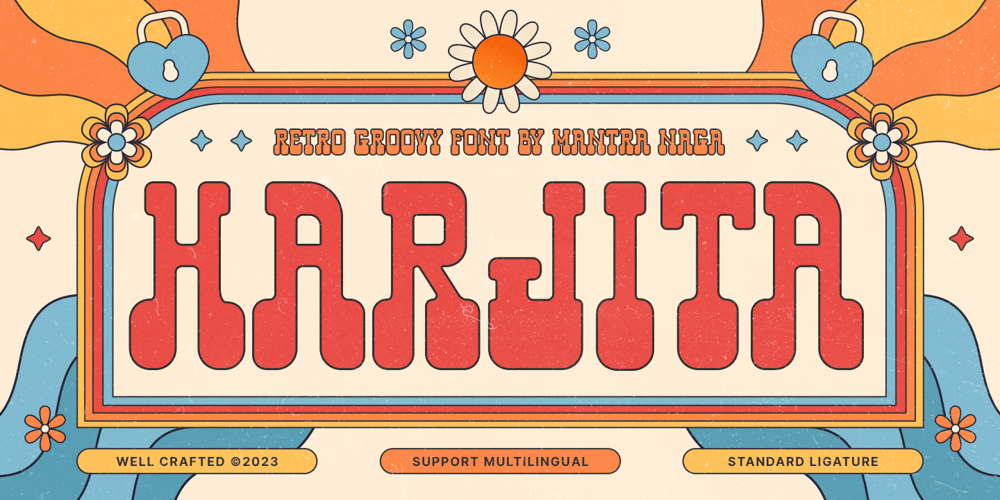
Harjita Font Family was designed by Fredo Eka Pratama and published by Mantra Naga Studio. Harjita contains 1 styles and family package options. Harjita is a Retro Groovy Font inspired by the retro pop style of the 80s-90s by combining a thick serif style and rounded corners so it looks friendly and easy to read. This font is perfect for brand identity needs or other graphic media. This font is also PUA encoded, which means you can easily access all glyphs and opentype features easily. 376 Glyphs 4 Opentype features 9 Ligatures set Support Multilingual for 89 languages We highly recommend using a program that supports the OpenType feature and the Glyphs pane like many Adobe and Corel Draw applications, so that you can view and access all variations of Glyphs. Thanks for your support of our product and using it in your project.